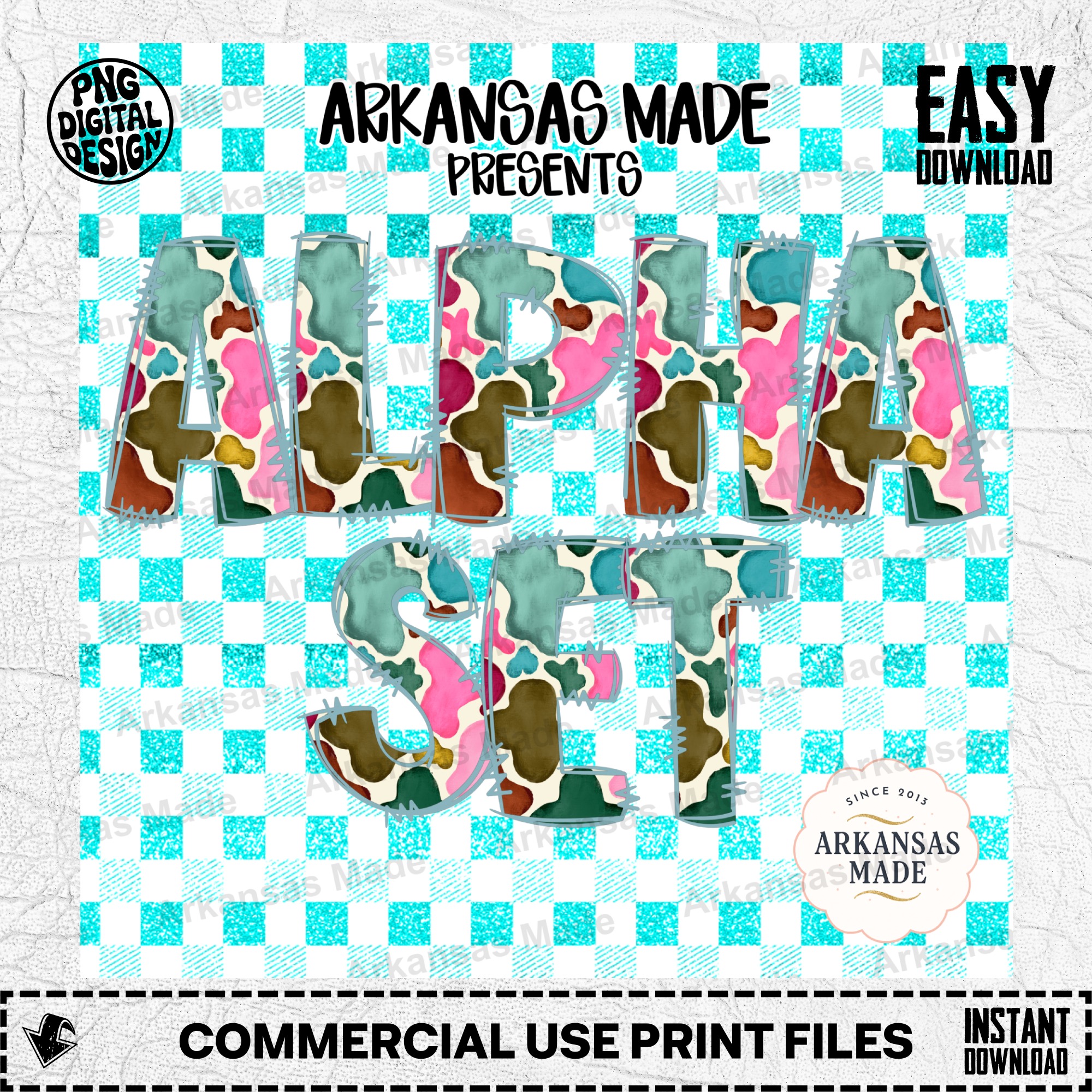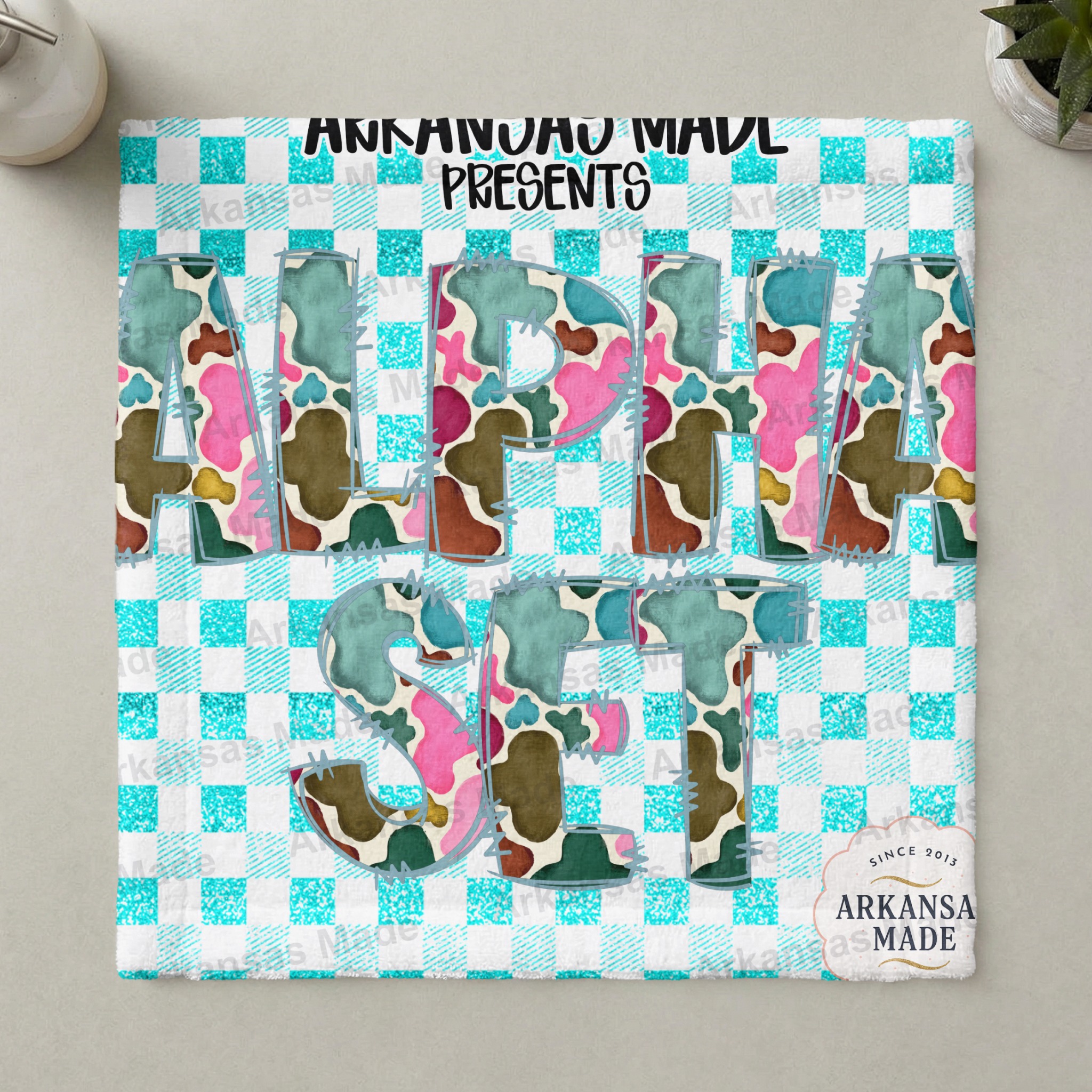
Unleash your creativity with this vibrant Colorful Cow Print Alpha Set Digital Download! Perfect for sublimation, DIY projects, and unique designs. Embrace a playful Western Boho aesthetic with this eye-catching digital alphabet featuring a hand-drawn cow print effect and a faux glitter buffalo plaid background. Ideal for crafters, small business owners, and anyone looking to add a personalized touch to their creations. Use these PNG letters for custom tumblers, shirts, nursery decor, party invitations, or memorable DIY gifts for birthdays and bachelorette celebrations.